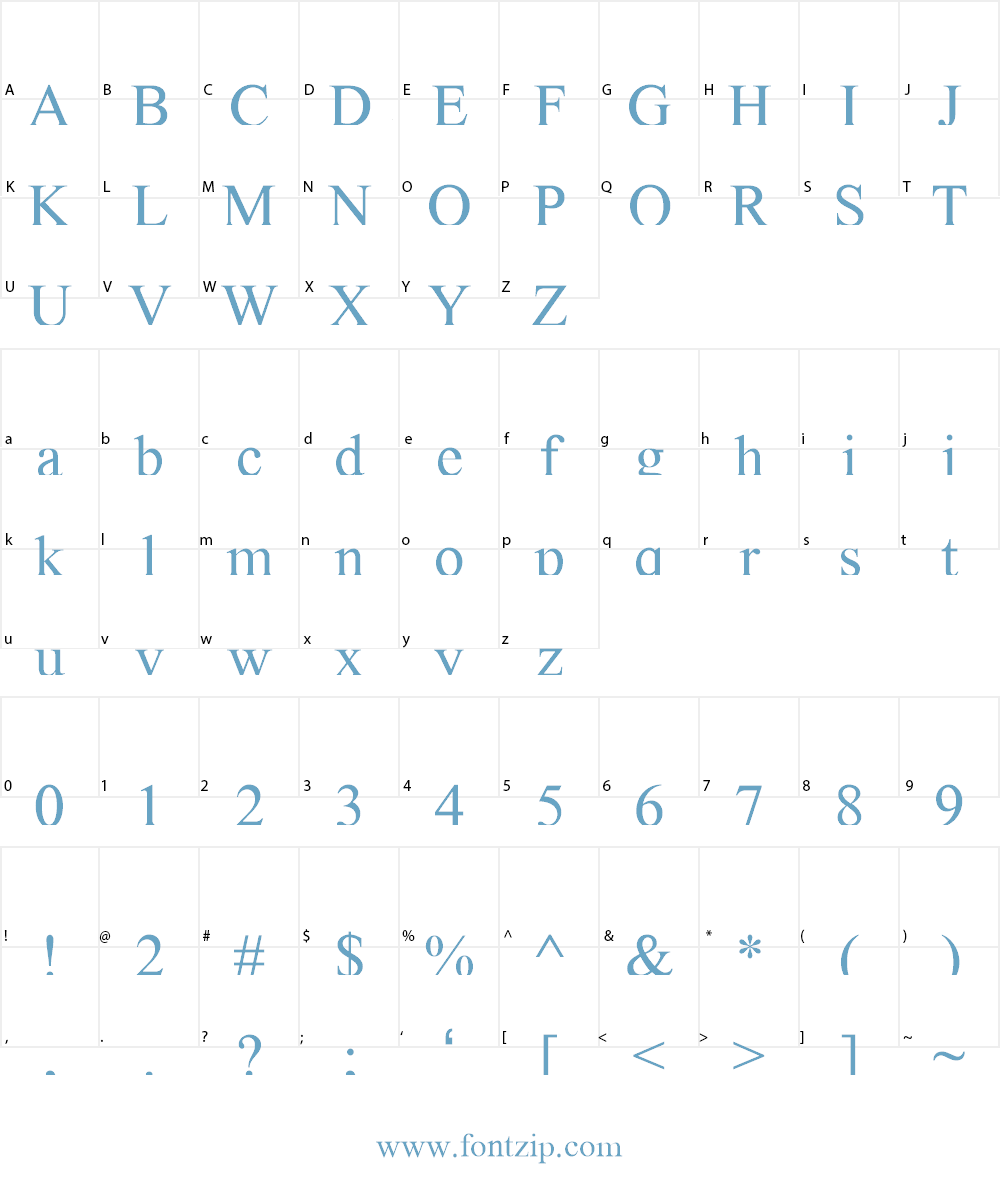
FretQwik is combination alphanumeric text font, and guitar fret diagram builder. Half of the font consists of ordinary alphanumeric characters from a third-party public license font (see font internals for details). If you inspect FretQwik without using a character map, you won't see the frets. The other half of the font has component symbols that can be pieced together to build nearly any standard guitar chord (6-string guitar, or 4-string ukelele or lute).